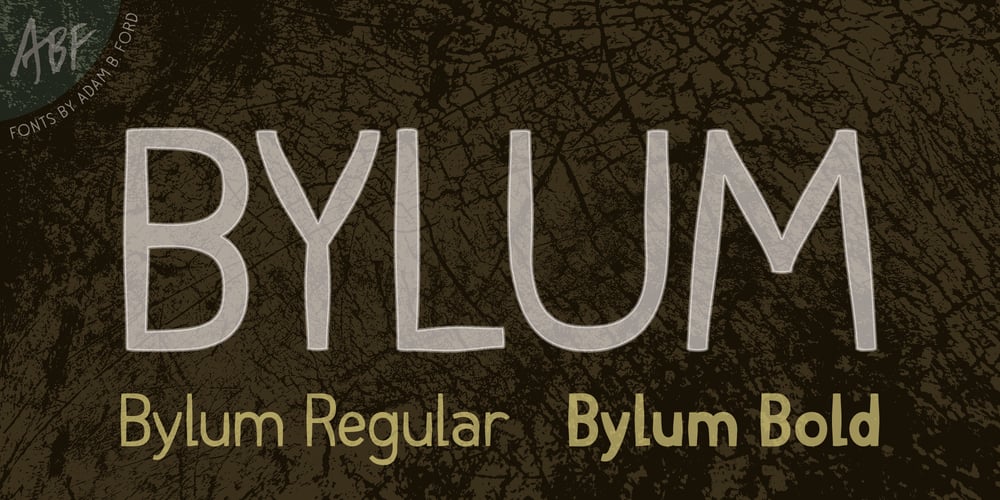
Bylum Font Family was designed by Adam B. Ford and published by Adam B. Ford. Bylum contains 2 styles and family package options. Bylum is put together with a bulbous line segment that makes up the bulk of the font. The verticals bulge out in the middle, the curves vary in width along their lengths. This gives the font a relaxed sway to it even while its verticals are upright and its design is fairly regimented.